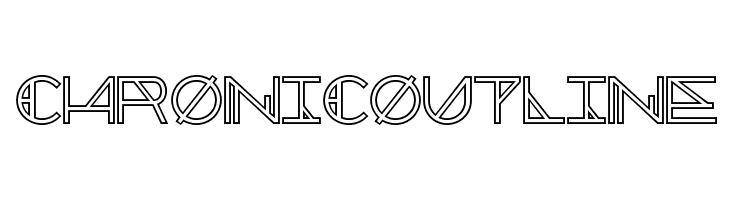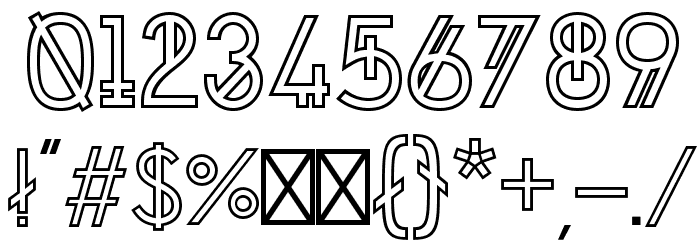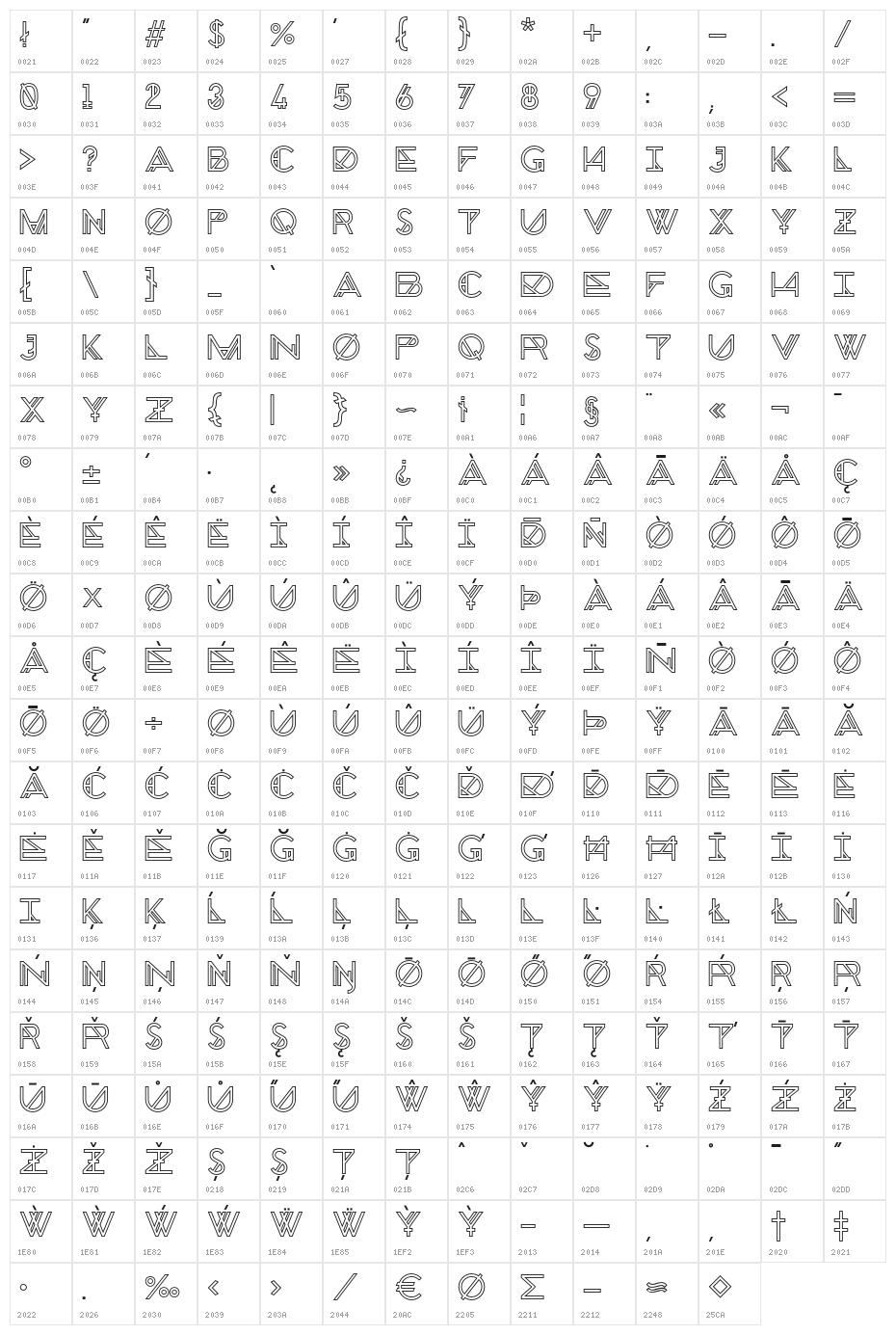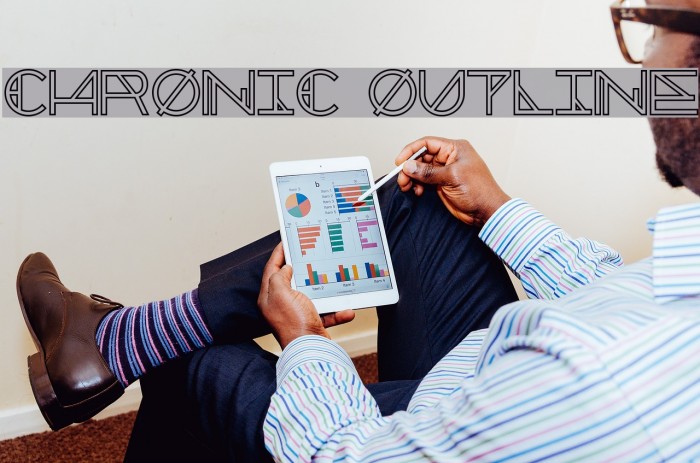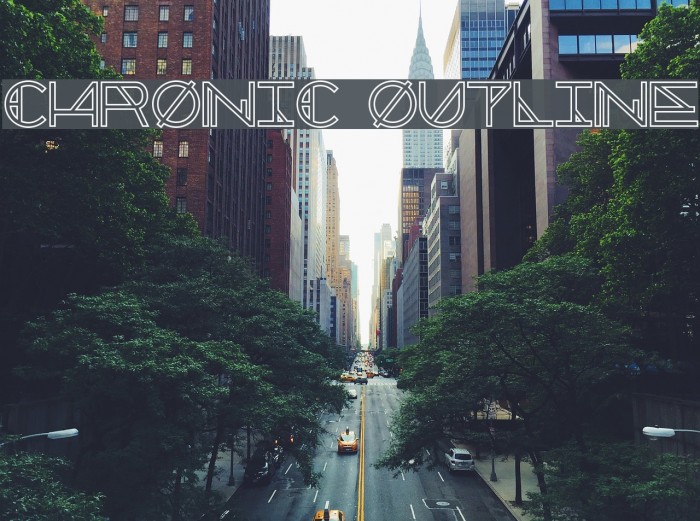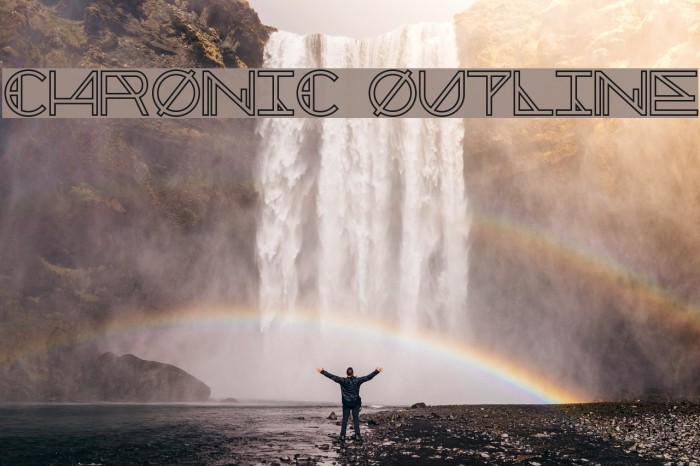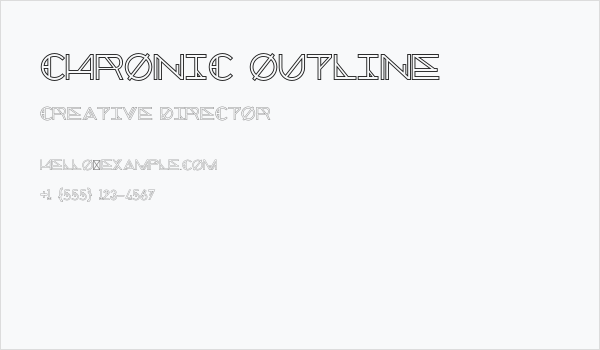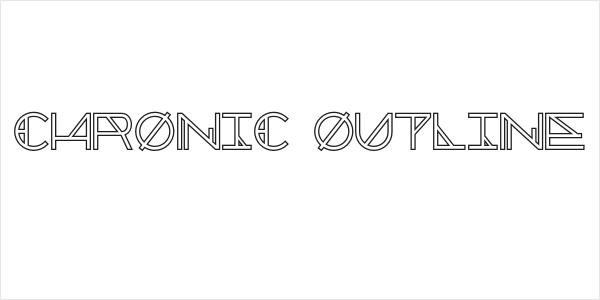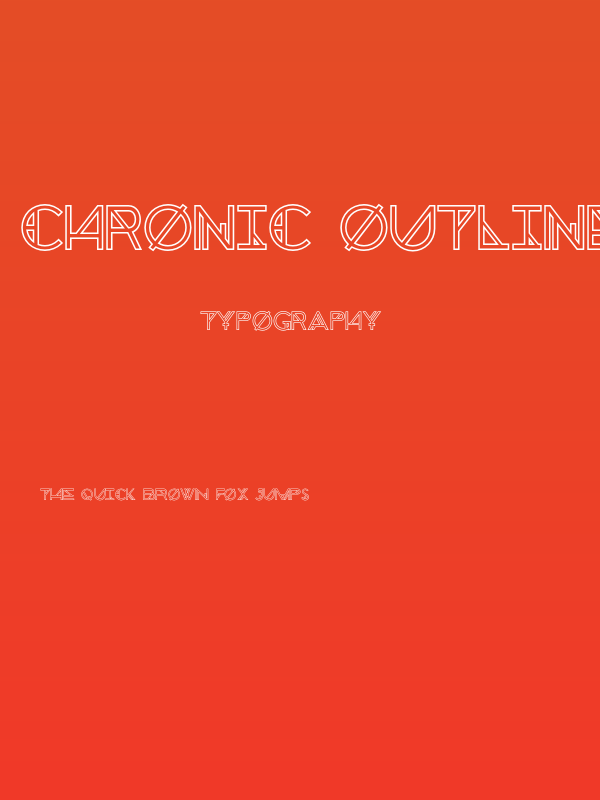
Chronic Outline Font
Chronic Outline Description
This font features a unique outline style with geometric and angular elements. The uppercase and lowercase letters share a consistent design, emphasizing sharp angles and clean lines. The numbers and special characters maintain this aesthetic, providing a cohesive look across all glyphs. The font's outline nature gives it a modern and edgy appearance, suitable for attention-grabbing designs. Its distinct style makes it ideal for projects that require a bold statement, while the geometric shapes add a touch of sophistication.
| Proposed Projects | Ideal for branding, posters, album covers, and any design needing a bold, modern touch. |